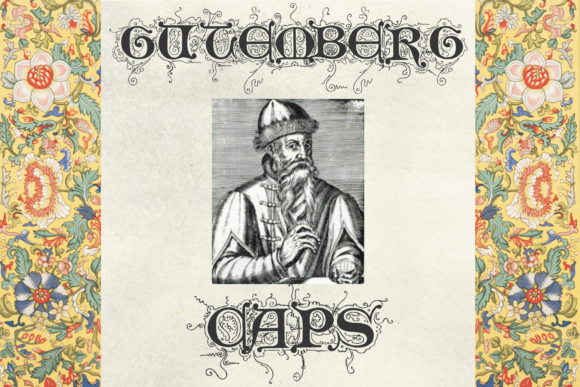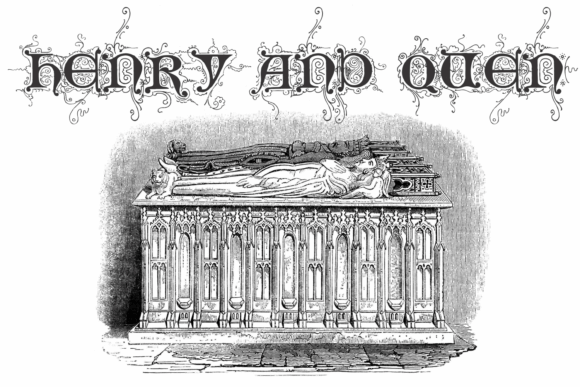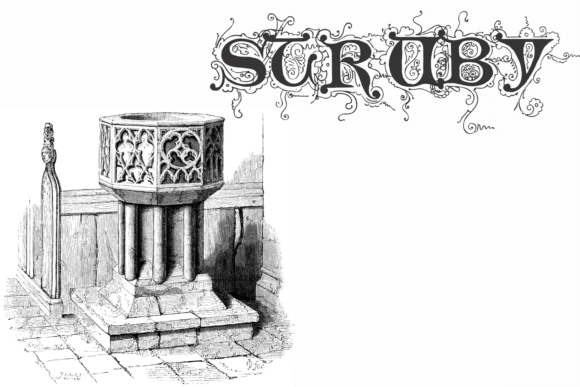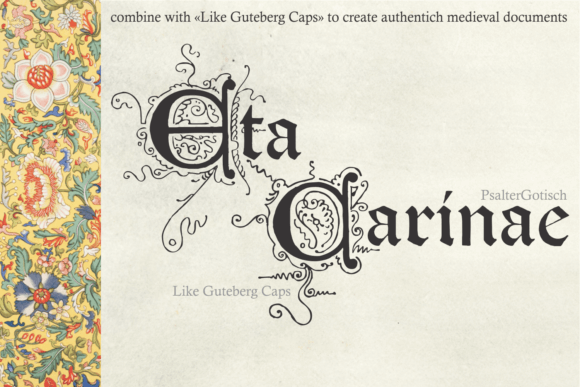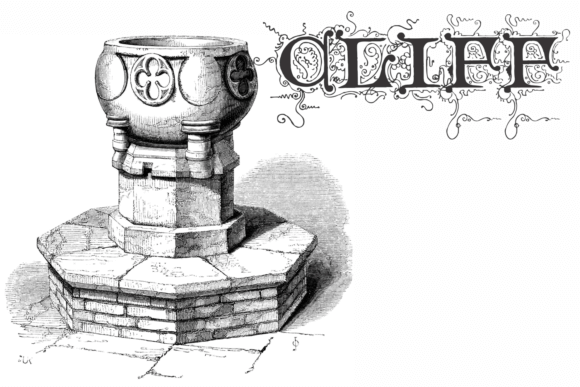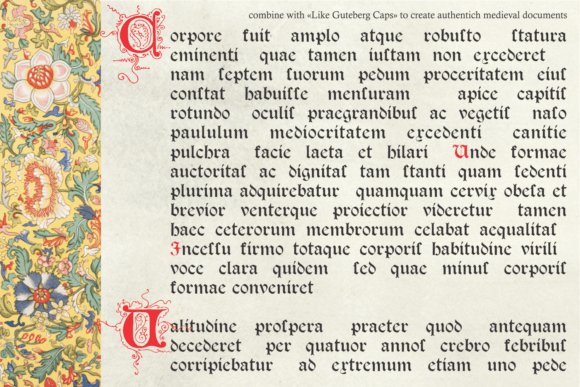
Like Gutemberg Caps
Buy NowLike Gutemberg Caps is an ornate display serif with a strong historical feel, blending blackletter-inspired structure, engraved detail, and decorative flourishes into richly styled capital letters. Its look is elaborate and elegant, with medieval, baroque, and Victorian notes that give headlines a distinctly illuminated, old-world character.
This family includes 2 styles—Regular and Shadow—offering options for dimensional, decorative typography. With its intricate, ornamental design, it is especially well suited to posters, signage, packaging, title work, themed branding, and other display settings where a dramatic vintage voice is part of the brief.
Created by Intellecta Design, this is a strong choice for projects that call for classic atmosphere, detailed letterforms, and a stylized Gothic presence rather than an everyday text face.